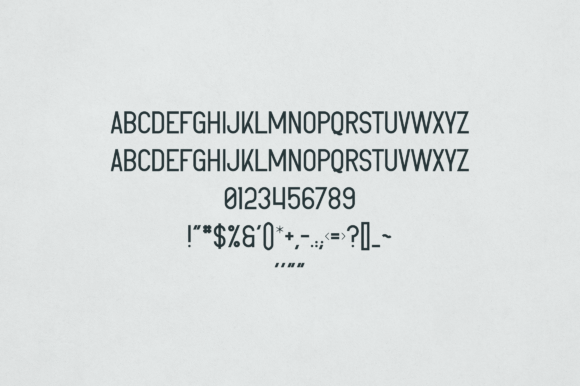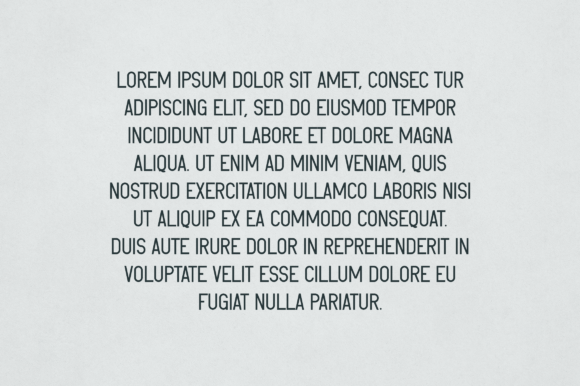
Bodhi Font: Elevate Your Typography with Elegance and Versatility
Are you tired of using the same old fonts for your design projects? Look no further than Bodhi Font, an elegant and versatile display font that will take your typography to the next level. With its unique and stylish design, Bodhi Font is perfect for designers and crafters looking to add a touch of sophistication to their work.
What Makes Bodhi Font Special?
Bodhi Font is more than just a font – it’s a statement piece. Its elegant and refined design makes it perfect for a wide range of applications, from logos and branding to headlines and plain text. Whether you’re working on a branding project, home-ware design, product packaging, or magazine header, Bodhi Font is sure to make your typography truly unique.
One of the standout features of Bodhi Font is its versatility. It can be used in a variety of contexts, from formal and professional to playful and creative. Its stylish design ensures that it will complement any background image, making it perfect for use as a text overlay.
Bodhi Font is a must-have for designers and crafters looking to elevate their typography. Its elegant design makes it perfect for a wide range of projects, including:
• Branding projects: Use Bodhi Font to create unique and memorable logos, business cards, and letterheads.
• Home-ware designs: Add a touch of elegance to your home-ware designs, from product labels to packaging.
• Product packaging: Make your product stand out with Bodhi Font, perfect for labels, tags, and packaging materials.
• Magazine headers: Use Bodhi Font to create eye-catching headlines and titles for your magazine or publication.
• Text overlays: Add a stylish text overlay to any background image with Bodhi Font.
Why Choose Bodhi Font?
There are many reasons why Bodhi Font stands out from the crowd. Here are just a few:
• Unique design: Bodhi Font has a truly unique and stylish design that will set your typography apart.
• Versatility: Bodhi Font can be used in a wide range of contexts, from formal to playful.
• Elegance: Bodhi Font adds a touch of elegance to any design project.
Tips for Using Bodhi Font
Here are a few tips for getting the most out of Bodhi Font:
• Experiment with different sizes: Bodhi Font looks great in a variety of sizes, from large headlines to smaller text overlays.
• Play with color: Bodhi Font looks great in a range of colors, from bold and bright to subtle and muted.
• Use it sparingly: Bodhi Font is a statement piece, so use it sparingly to add impact to your design.
Bodhi Font is an elegant and versatile display font that is perfect for designers and crafters looking to elevate their typography. With its unique and stylish design, Bodhi Font is sure to make your typography truly unique. Whether you’re working on a branding project, home-ware design, product packaging, or magazine header, Bodhi Font is the perfect choice. So why wait? Download Bodhi Font today and take your typography to the next level!